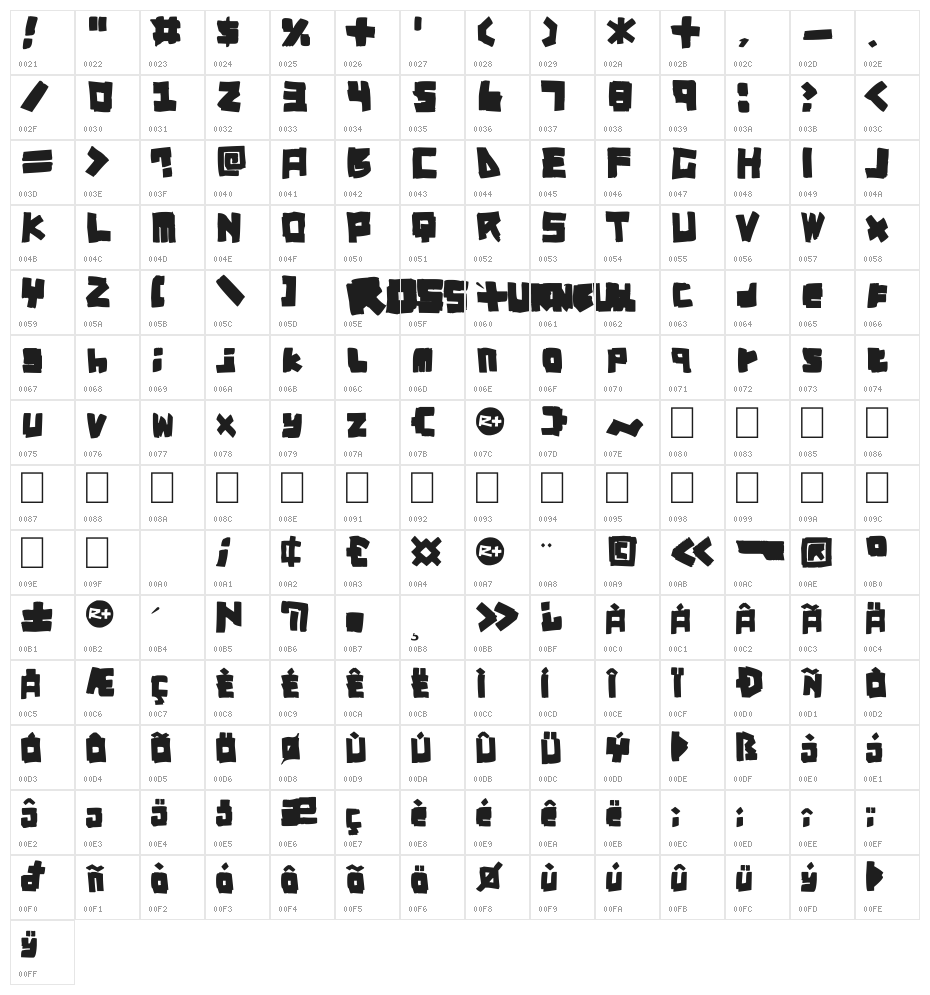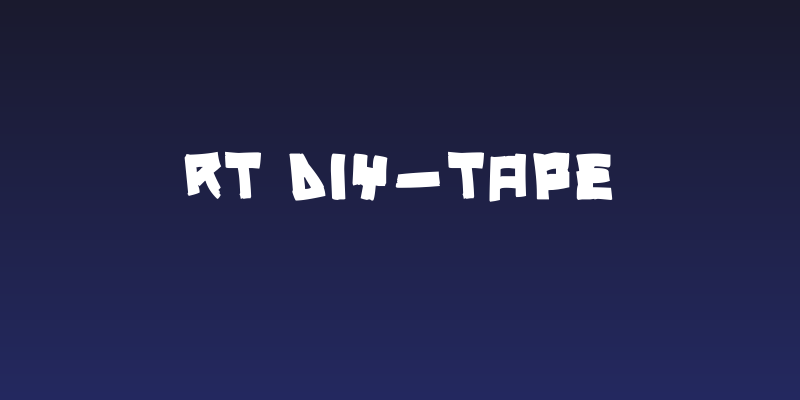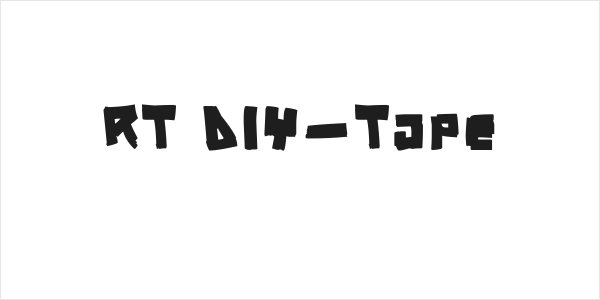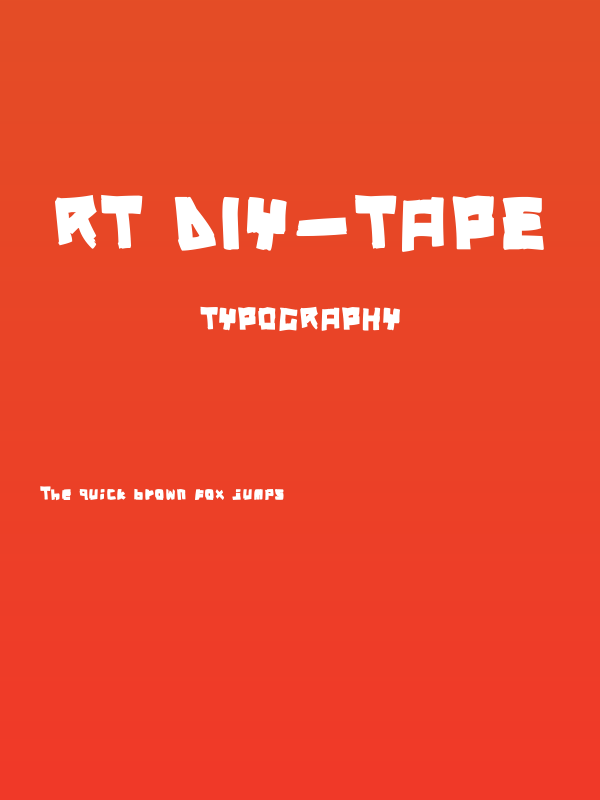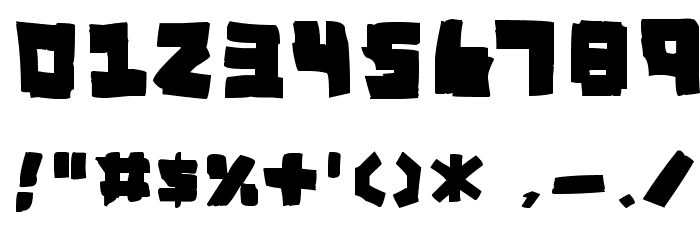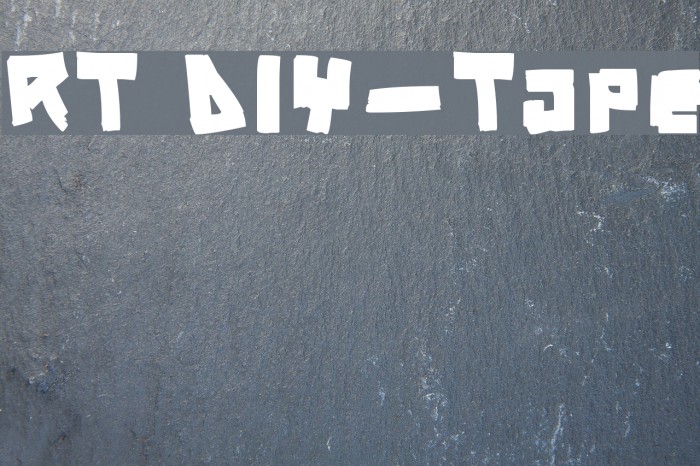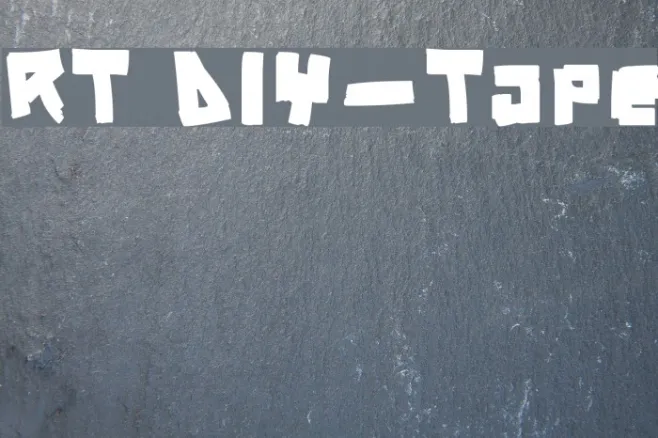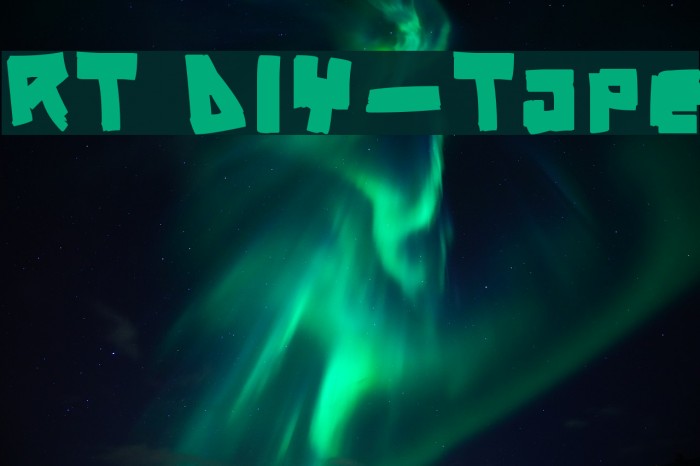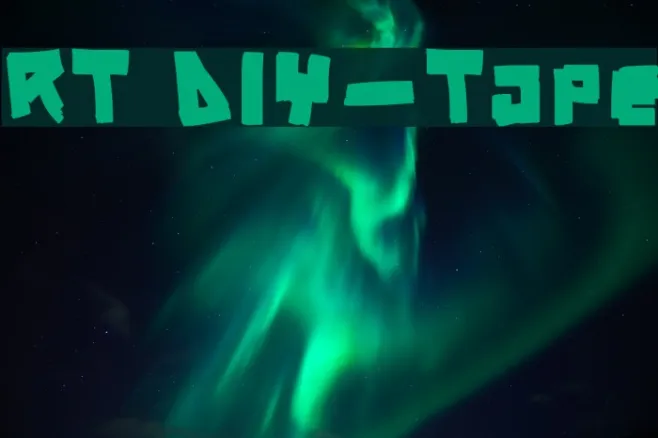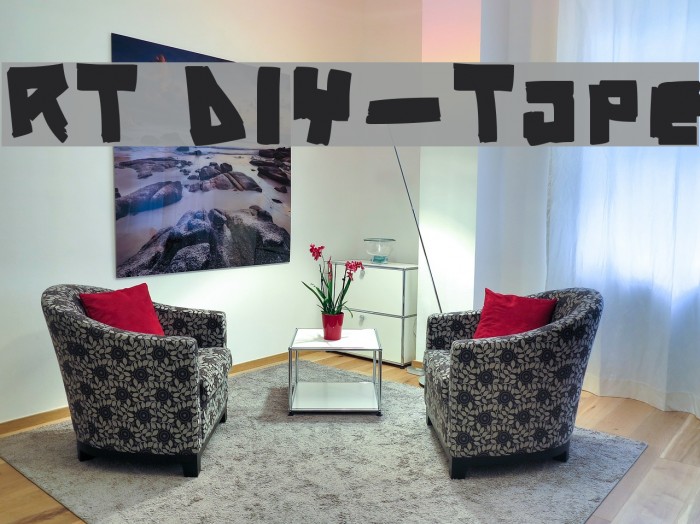
RT DIY-Tape Font
RT DIY-Tape Description
This font features a bold, rugged design that mimics the appearance of letters cut from tape. Each character has an irregular, hand-crafted look, giving it a unique and edgy aesthetic. The uppercase and lowercase letters maintain a consistent style, with sharp angles and uneven edges that add to its DIY charm. The numerals and special characters follow the same design principles, ensuring a cohesive appearance across all glyphs. This font is perfect for projects that require a raw, handmade feel, such as posters, album covers, or any creative work that benefits from a touch of grunge and authenticity.
| Proposed Projects | Ideal for posters, album covers, DIY projects, and any creative work needing a raw, handmade aesthetic. |